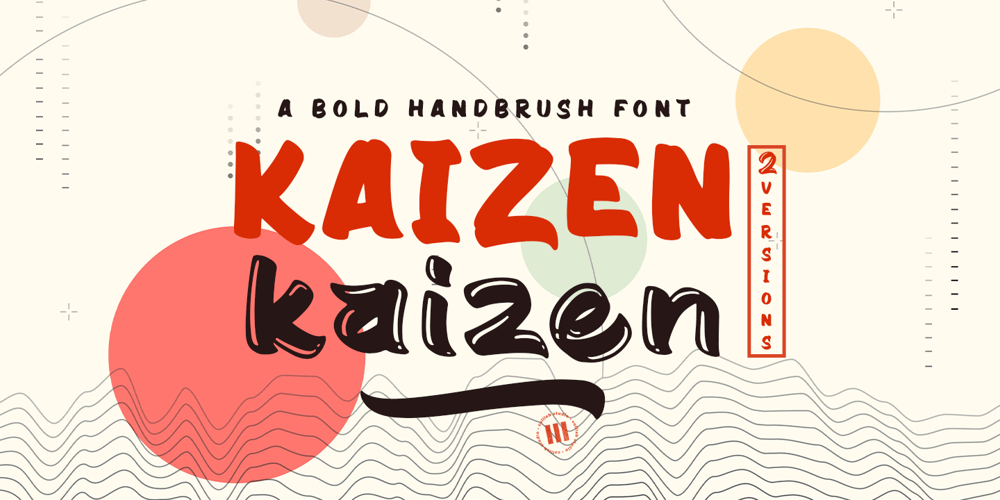
Kaizen
Kaizen font
Kaizen Font Family was designed by Muh. Aswar and published by Colllab Studio. Kaizen contains 2 styles and family package options. Presenting Kaizen! A Bold Handbrush Font in 2 Versions. This font made with the perfect combination of each character. You can combine with Extra to get a unique combination. It looks original and can be used for all your project needs. Each glyph has its own uniqueness and when meeting with others will provide dynamic and pleasing proximity. This font can be used at any time and in any project. You can see in the presentation picture above, Kaizen looks unique and Japanese style on design projects.So, Kaizen can’t wait to give its touch to all your design projects such as quotes, poster design, personal branding, promotional materials, website, logotype, product packaging, etc.WHAT’S INCLUDED?1. Kaizen Version One (Solid) • The first version comes with uppercase, lowercase, ligatures, numeral, punctuation, symbols, and Standard Latin Multilingual Support (Afrikaans, Albanian, Catalan, Danish, Dutch, English, French, German, Icelandic, Indonesian, Italian, Malay, Norwegian, Portuguese, Spanisch, Swedish, Zulu, and More).2. Kaizen Version Two (Inline texture) • The first version comes with uppercase, lowercase, ligatures, numeral, punctuation, symbols, and Standard Latin Multilingual Support (Afrikaans, Albanian, Catalan, Danish, Dutch, English, French, German, Icelandic, Indonesian, Italian, Malay, Norwegian, Portuguese, Spanisch, Swedish, Zulu, and More).2. Extra Swashes • Included 6 Underline Swashes. You can feature all with typing c_1 until c_6 (in both versions)A Million ThanksColllab Studio